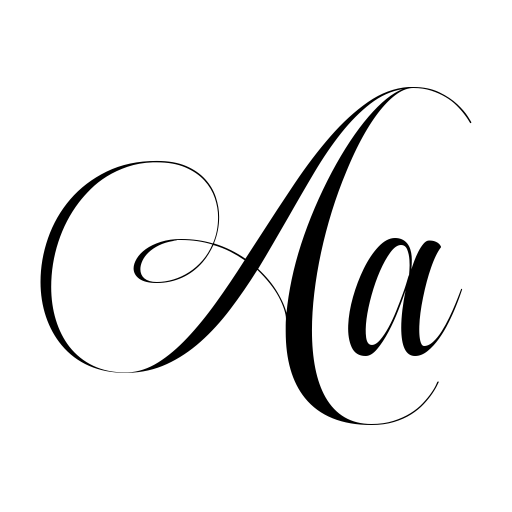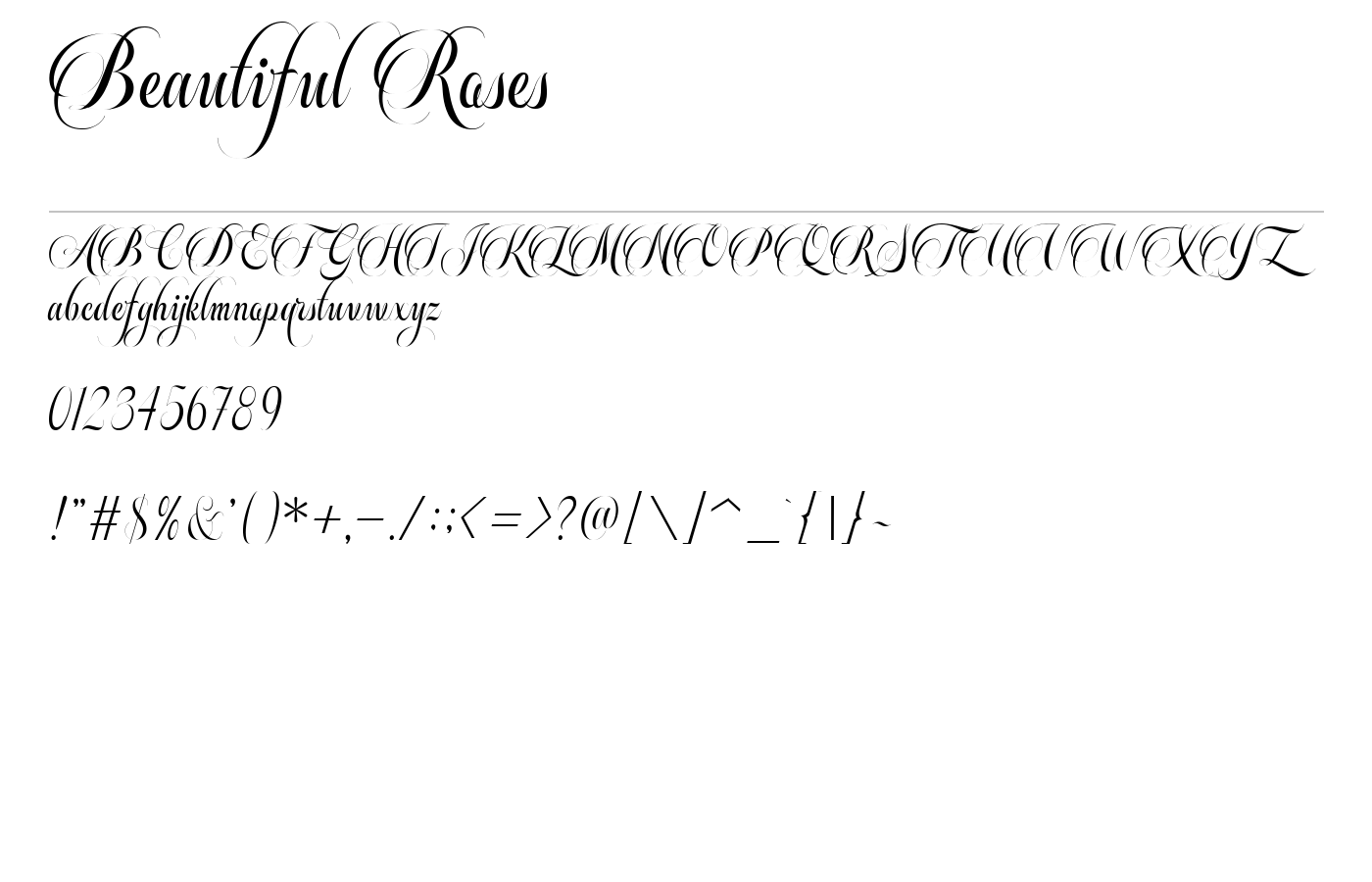
Beautiful Roses is an elegant script font with delicate, flowing strokes and intricate swashes that convey a sense of sophistication and charm. Its thin, high-contrast lines and graceful letterforms make it perfect for luxurious branding, wedding invitations, and romantic designs that need a refined, artistic touch. This font shines best in headlines and decorative uses where its ornamental style can stand out beautifully.
Beautiful Roses Font
About Beautiful Roses Font
| Font family | Beautiful Roses Font |